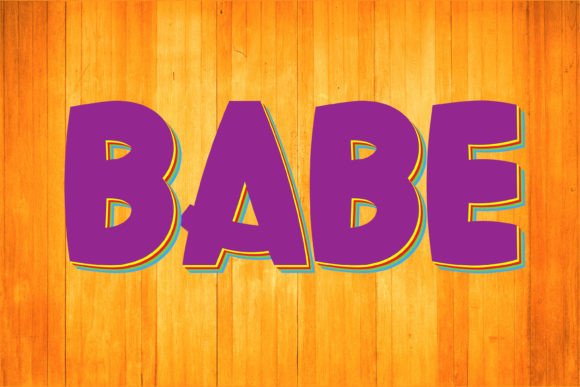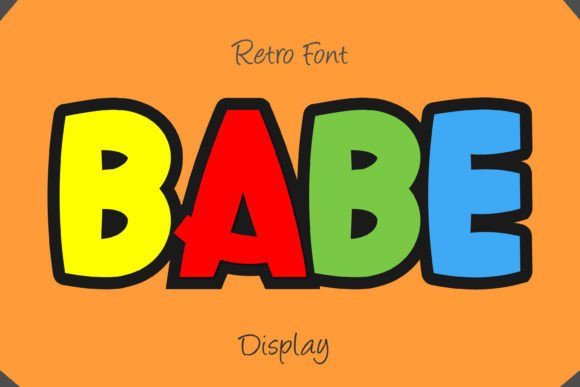
Babe Font: The Fun and Bold Display Font for Creative Projects
Are you looking for a font that can add a touch of quirkiness and grooviness to your designs? Look no further than Babe Font! This fun and bold display font is perfect for a wide spectrum of applications, from crafting and DIY projects to digital designs and marketing materials.
What is Babe Font?
Babe Font is a display font that is designed to make a statement. Its bold and playful design makes it perfect for headlines, titles, and other applications where you want to grab attention. The font is quirky and groovy, with a unique character that sets it apart from more traditional fonts.
Characteristics of Babe Font
So, what makes Babe Font so special? Here are a few of its key characteristics:
- Bold and playful design: Babe Font is designed to be eye-catching and attention-grabbing. Its bold lines and playful curves make it perfect for headlines and titles.
- Quirky and groovy: Babe Font has a unique character that is reminiscent of the 1960s and 1970s. It’s perfect for designs that need a touch of nostalgia or retro flair.
- Highly versatile: Babe Font can be used for a wide range of applications, from digital designs to print materials. It’s perfect for crafting and DIY projects, as well as marketing materials and branding.
Uses for Babe Font
So, what can you use Babe Font for? The possibilities are endless! Here are a few ideas to get you started:
- Crafting and DIY projects: Babe Font is perfect for crafting and DIY projects, such as handmade cards, scrapbooking, and other paper crafts.
- Digital designs: Babe Font can be used for digital designs, such as social media graphics, blog posts, and website headers.
- Marketing materials: Babe Font is a great choice for marketing materials, such as brochures, flyers, and posters.
- Branding: Babe Font can be used as a logo font or for branding materials, such as business cards and letterheads.
Tips for Using Babe Font
Here are a few tips for using Babe Font effectively:
- Use it sparingly: Babe Font is a bold font, so it’s best to use it sparingly. Use it for headlines and titles, and pair it with a simpler font for body text.
- Experiment with colors: Babe Font looks great in a variety of colors, so don’t be afraid to experiment. Try using it in bright, bold colors to add a pop of personality to your designs.
- Pair it with other fonts: Babe Font can be paired with a variety of other fonts to create a unique and interesting design. Try pairing it with a simple sans-serif font for a bold and modern look.
Babe Font is a fun and bold display font that is perfect for a wide spectrum of applications. Its quirky and groovy design makes it a great choice for designers and crafters who want to add a touch of personality to their designs. With its highly versatile design and endless uses, Babe Font is a great addition to any designer’s toolkit.